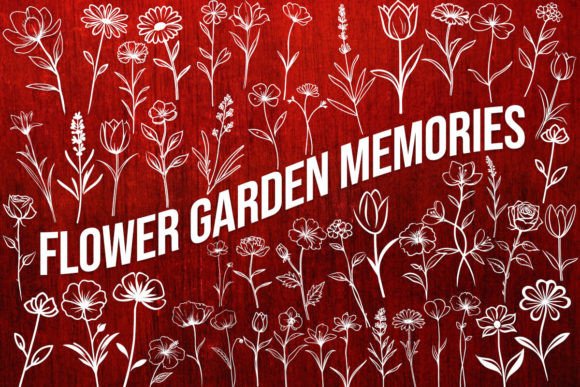
🌸 Captivate with Flower Garden Memories Dingbats Fonts! 🌿 🌸
Are you looking for a way to add a touch of floral nostalgia to your designs? Look no further than the Flower Garden Memories Font! This beautiful dingbats font is perfect for anyone who loves flowers, gardening, or just wants to add a whimsical touch to their work. In this article, we’ll take a closer look at the Flower Garden Memories Font, its features, and how you can use it to immerse your designs in floral nostalgia.
What is Flower Garden Memories Font?
Flower Garden Memories Font is a unique dingbats font that features beautiful floral designs, including flowers, leaves, and other garden-inspired elements. The font is designed to evoke a sense of nostalgia and whimsy, making it perfect for a variety of design projects, from wedding invitations and greeting cards to social media graphics and blog posts.
One of the standout features of the Flower Garden Memories Font is its versatility. The font includes a wide range of characters, including letters, numbers, and symbols, making it easy to use for a variety of design projects. Additionally, the font is highly customizable, allowing you to adjust the size, color, and style to fit your needs.
How to Use Flower Garden Memories Font in Your Designs
The Flower Garden Memories Font is a versatile font that can be used in a variety of design projects. Here are a few ideas to get you started:
- Wedding Invitations: Add a touch of elegance and whimsy to your wedding invitations with the Flower Garden Memories Font. Use the font to create beautiful floral designs, monograms, and other decorative elements.
- Greeting Cards: Create beautiful greeting cards for birthdays, holidays, and other special occasions with the Flower Garden Memories Font. The font’s floral designs and whimsical feel make it perfect for creating cards that are both personal and stylish.
- Social Media Graphics: Add a touch of personality to your social media graphics with the Flower Garden Memories Font. Use the font to create eye-catching graphics, quotes, and other social media content that will help you stand out.
- Blog Posts: Add a touch of whimsy to your blog posts with the Flower Garden Memories Font. Use the font to create headings, subheadings, and other decorative elements that will help your blog posts stand out.
Benefits of Using Flower Garden Memories Font
There are many benefits to using the Flower Garden Memories Font in your designs. Here are a few:
- Unique and Eye-Catching: The Flower Garden Memories Font is a unique and eye-catching font that will help your designs stand out. The font’s floral designs and whimsical feel make it perfect for creating designs that are both personal and stylish.
- Versatile: The Flower Garden Memories Font is a versatile font that can be used in a variety of design projects. Whether you’re creating wedding invitations, greeting cards, or social media graphics, the font is highly customizable and easy to use.
- Easy to Use: The Flower Garden Memories Font is easy to use, even for those who are new to design. The font includes a wide range of characters, making it easy to create beautiful designs without a lot of hassle.
The Flower Garden Memories Font is a beautiful dingbats font that is perfect for anyone who loves flowers, gardening, or just wants to add a whimsical touch to their work. With its versatile design, wide range of characters, and ease of use, the font is perfect for a variety of design projects. Whether you’re creating wedding invitations, greeting cards, or social media graphics, the Flower Garden Memories Font is sure to help you create beautiful designs that will captivate your audience.